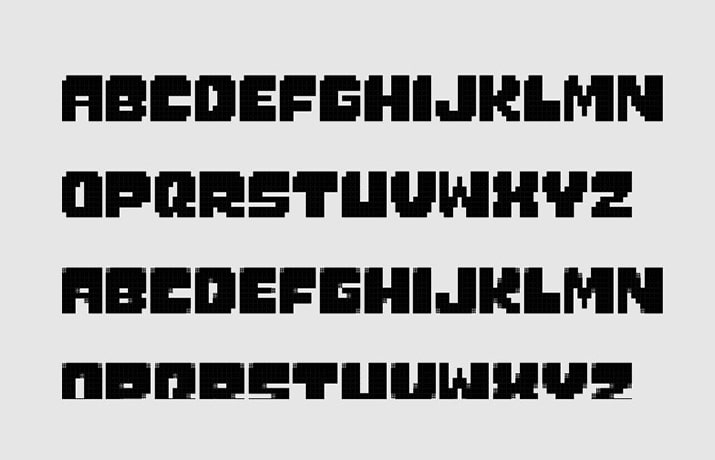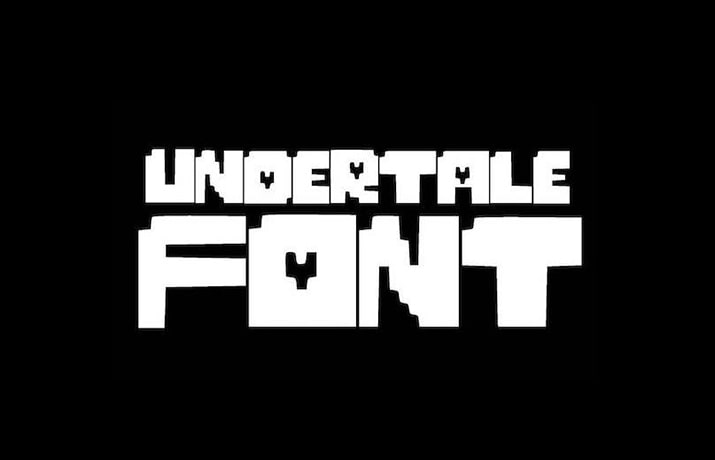
Today we are Introducing a gaming font called Undertale Logo Font. The Undertale logo font is a gaming typeface seen in many video games.
The font was first created in 2015 when it was used on the logo of the popular video game ‘Undertale Logo’. Since then, it has become a standard typeface for many online video games.
Undertale is a popular and most played video game designed by indie developer Toby Fox in 2015.
Since then, the game has been unstoppable and has been used on every device. It was released as an independent game for Mac OSX but later expanded its use and originated for Linux and PlayStation.
Font Name: | Monster Friend Font Family |
Style: | Gaming, Pixel, Bitmap |
Font Designer: | Harry Wakamatsu |
The font used for the Undertale video game logo is very similar to the 3d font family Monster Friend Font. This font comes in two unique styles including Fore and Back.